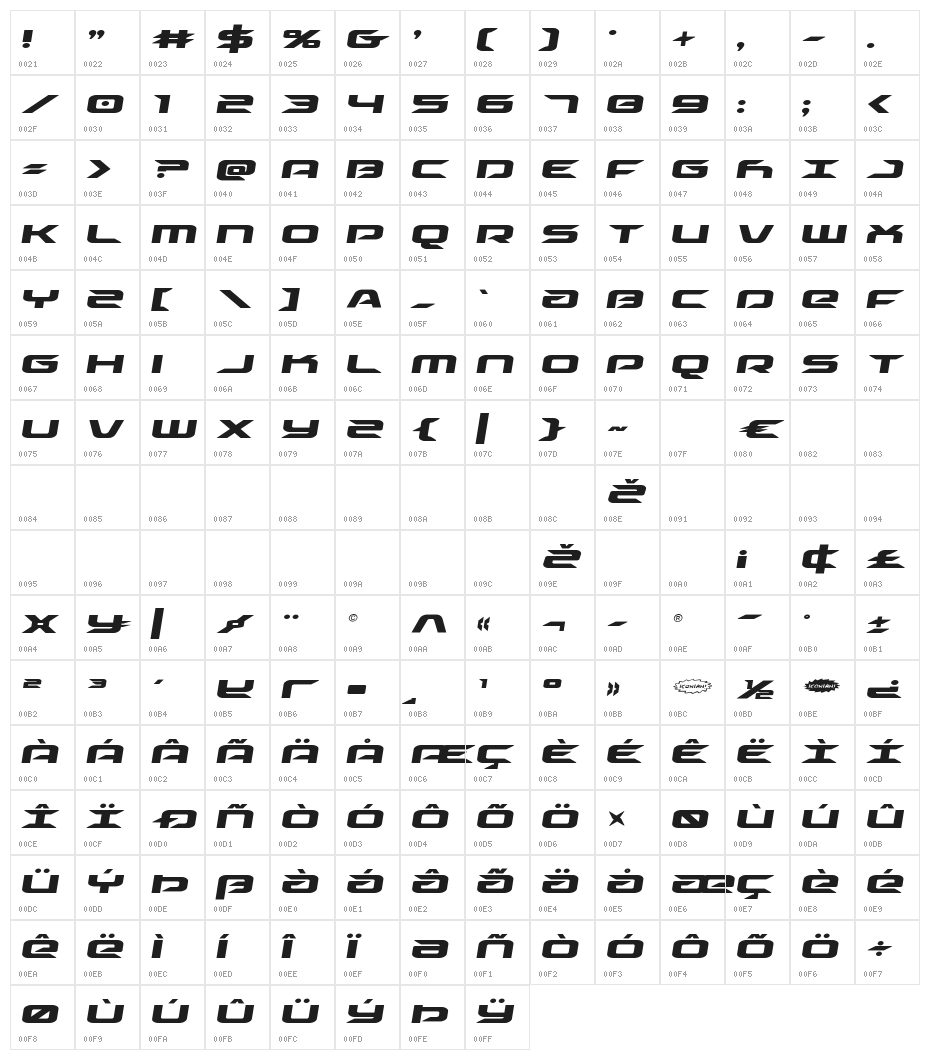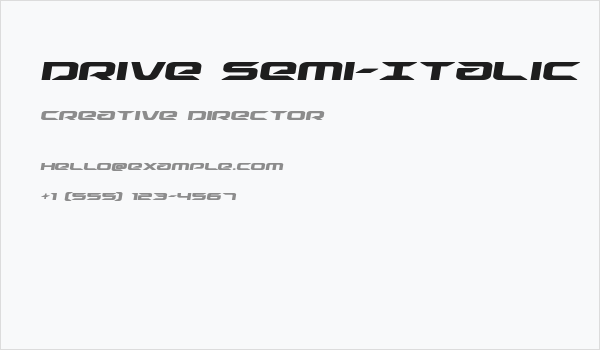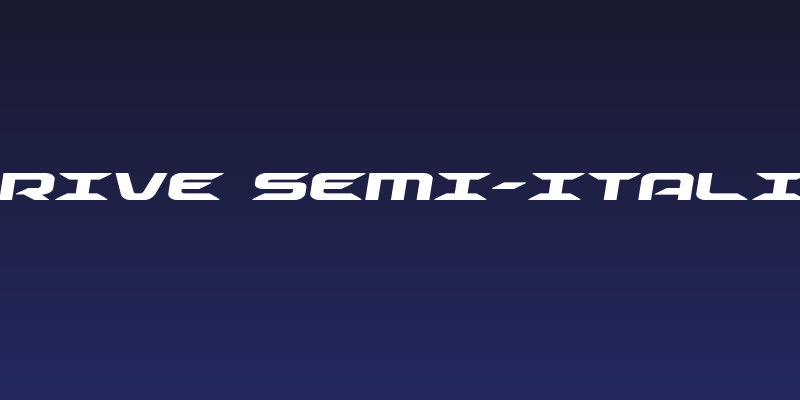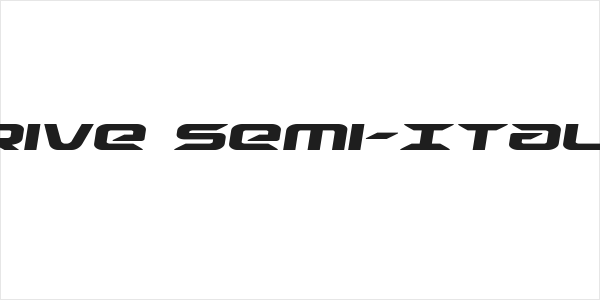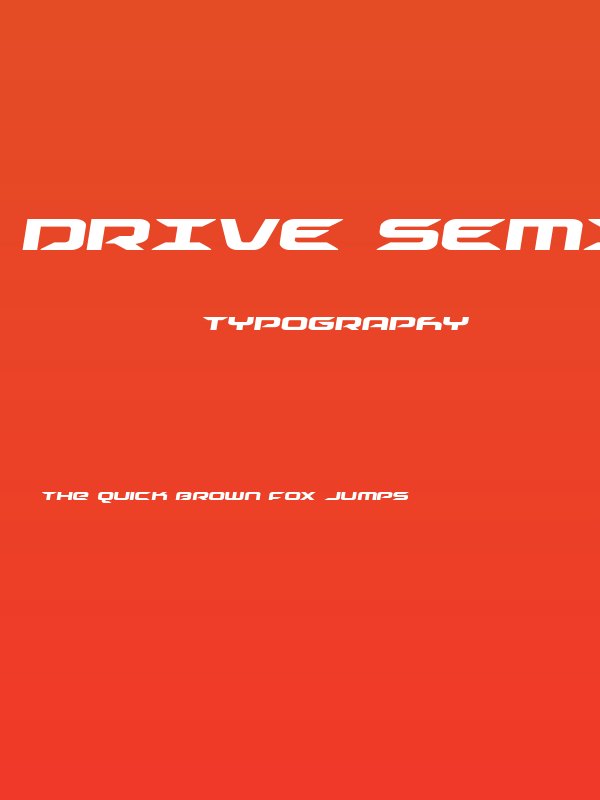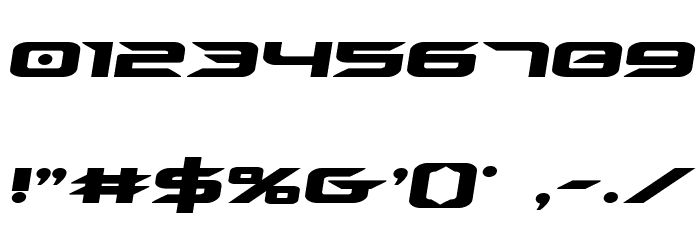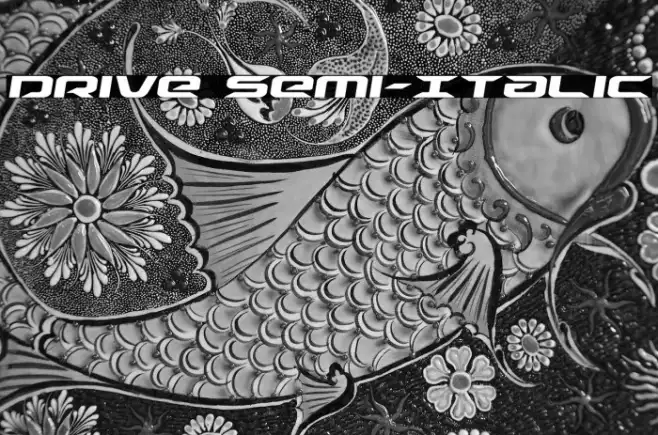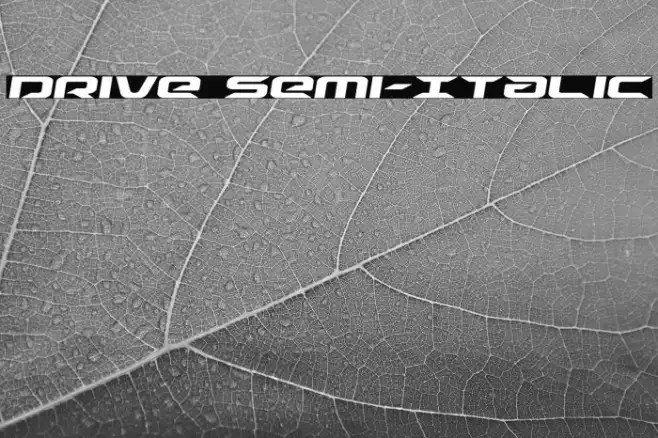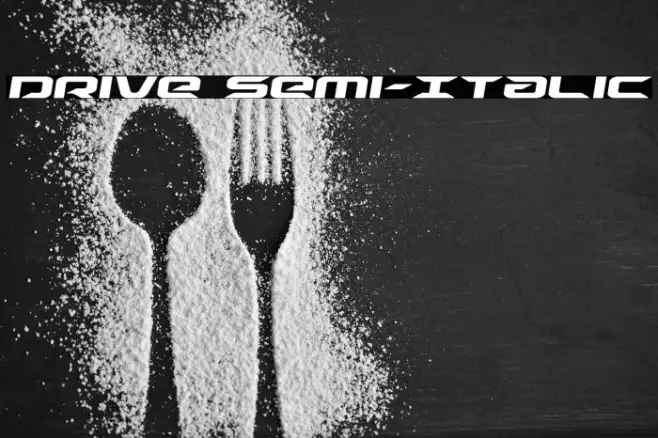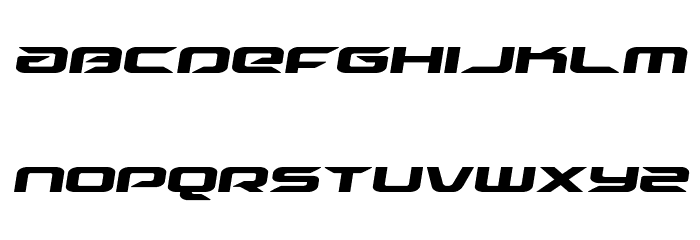
Drive Semi-Italic Font
Drive Semi-Italic Description
This font features a dynamic and futuristic design with a semi-italic slant, giving it a sense of motion and speed. The characters are bold and angular, with sharp edges and a distinct geometric style. The uppercase and lowercase letters maintain a consistent design, with the lowercase being slightly smaller but equally impactful. Numbers and special characters follow the same aesthetic, ensuring uniformity across all text elements. The font's unique style makes it ideal for projects that require a modern and edgy look.
| Use Case | Logos, Headlines, Branding |
| Proposed Projects | Ideal for automotive branding, tech company logos, video game titles, and sports team merchandise. |